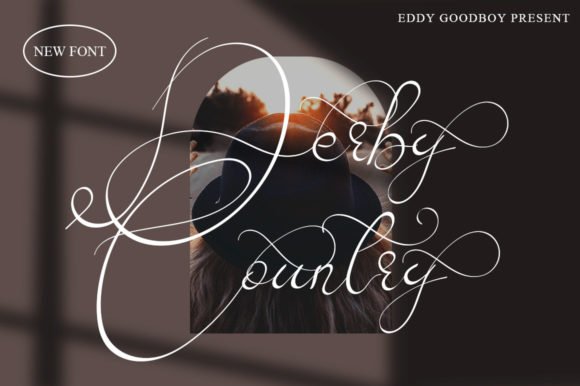
Introduction to Derby Country Font
Derby Country is a beautiful and sweet font.
It is fresh, clean, and elegant This font will look amazing in a great number of projects, both formal and informal.
Key Features of Derby Country Font
Why Choose Derby Country Font?
Derby Country Font offers exceptional quality and versatility, making it a valuable addition to your design toolkit. Whether you’re creating for personal projects or commercial use, Derby Country Font delivers professional results.